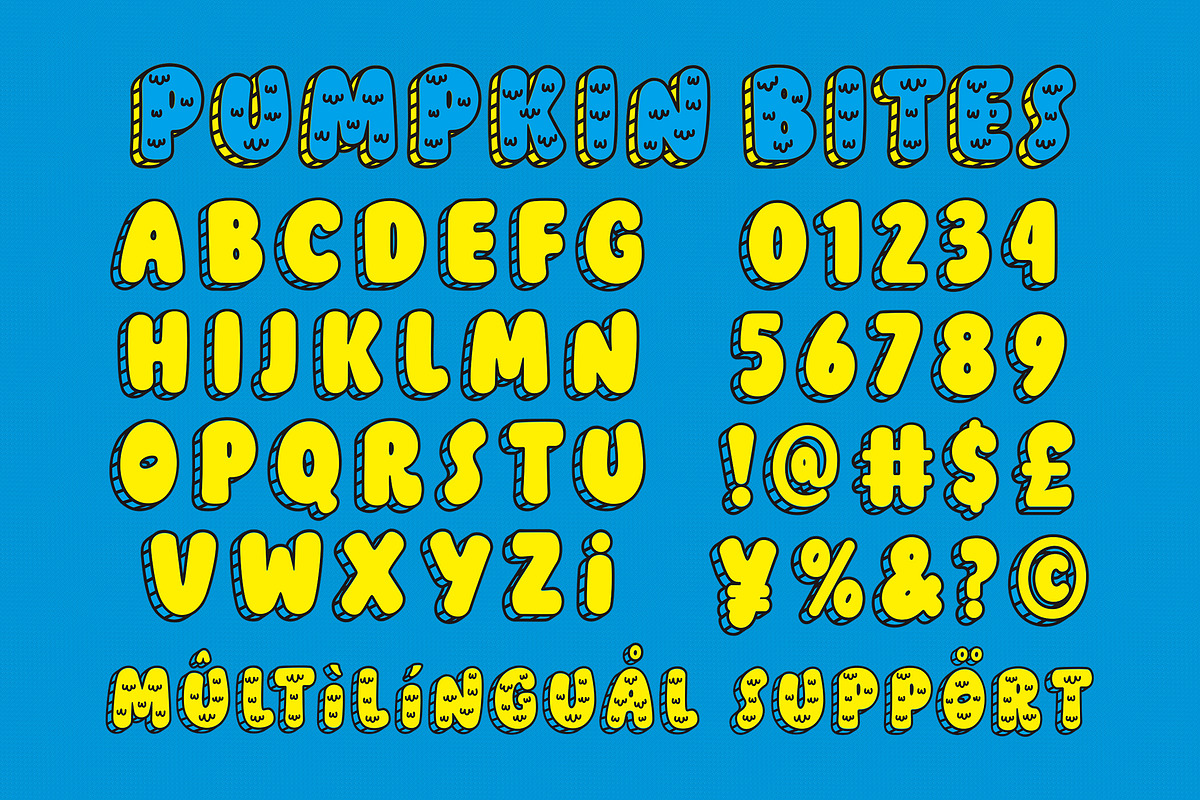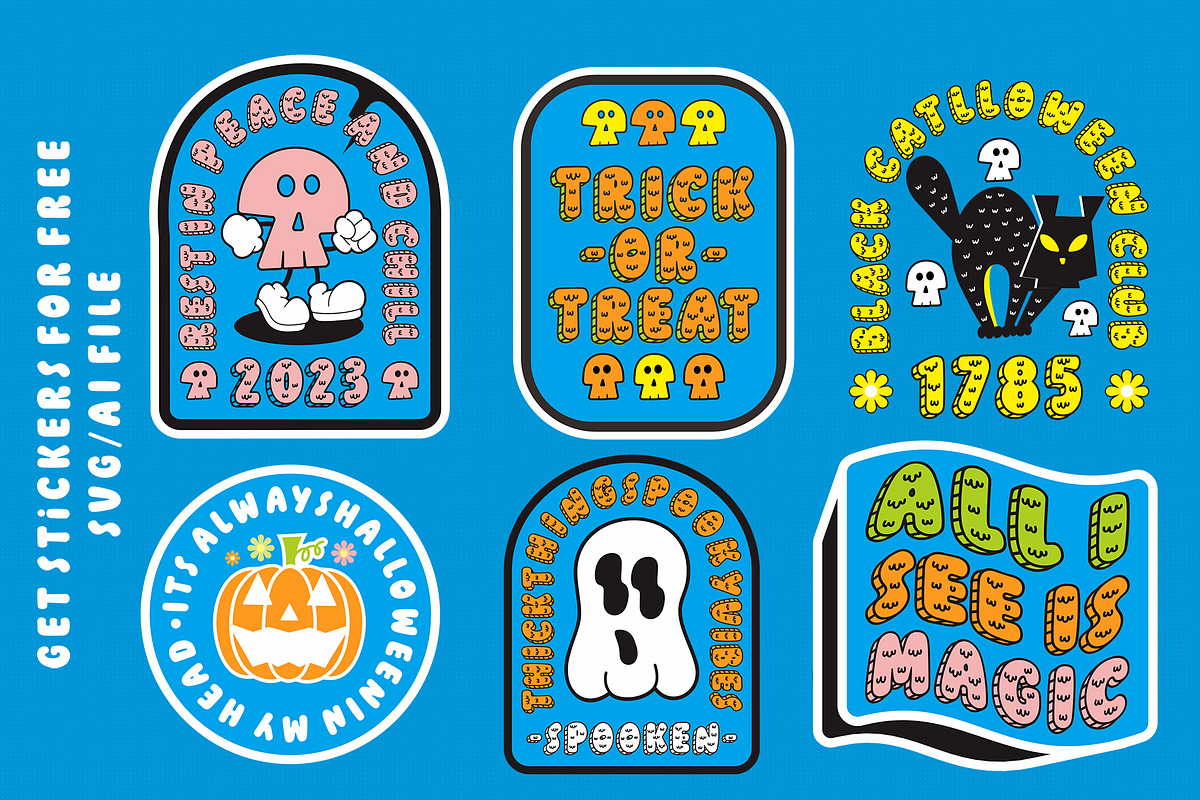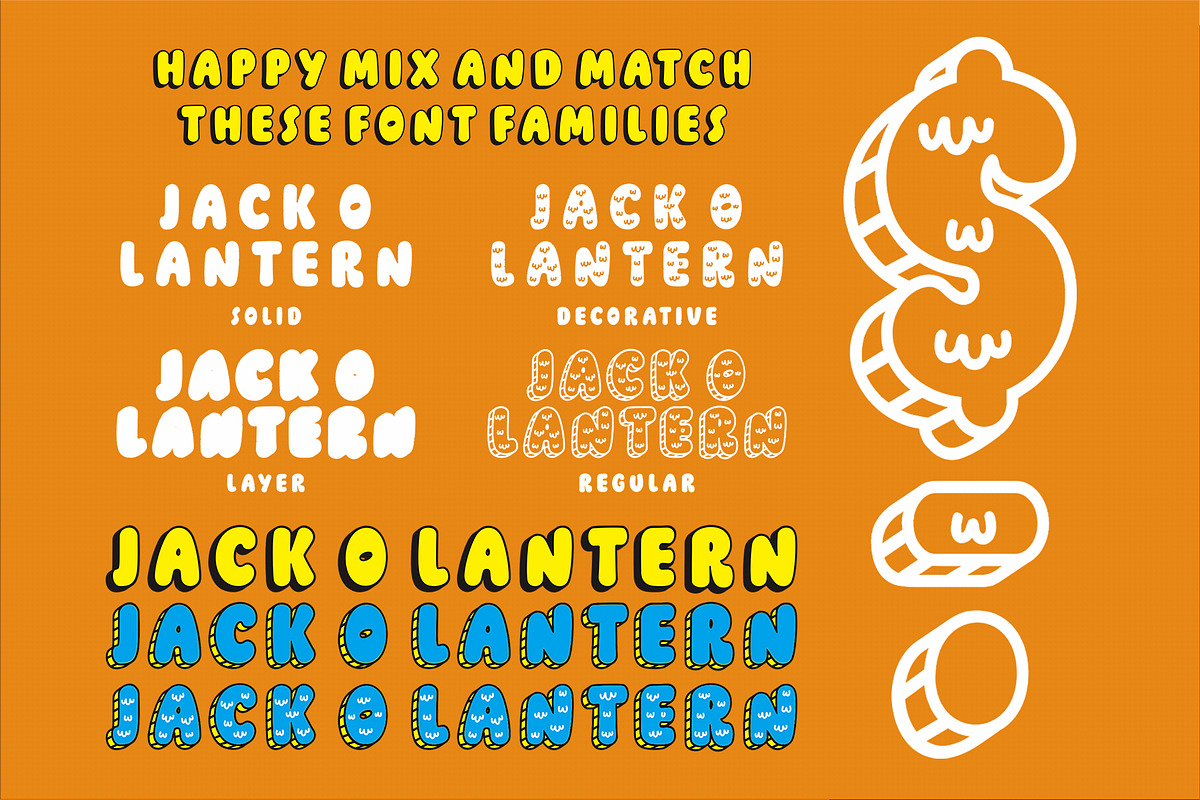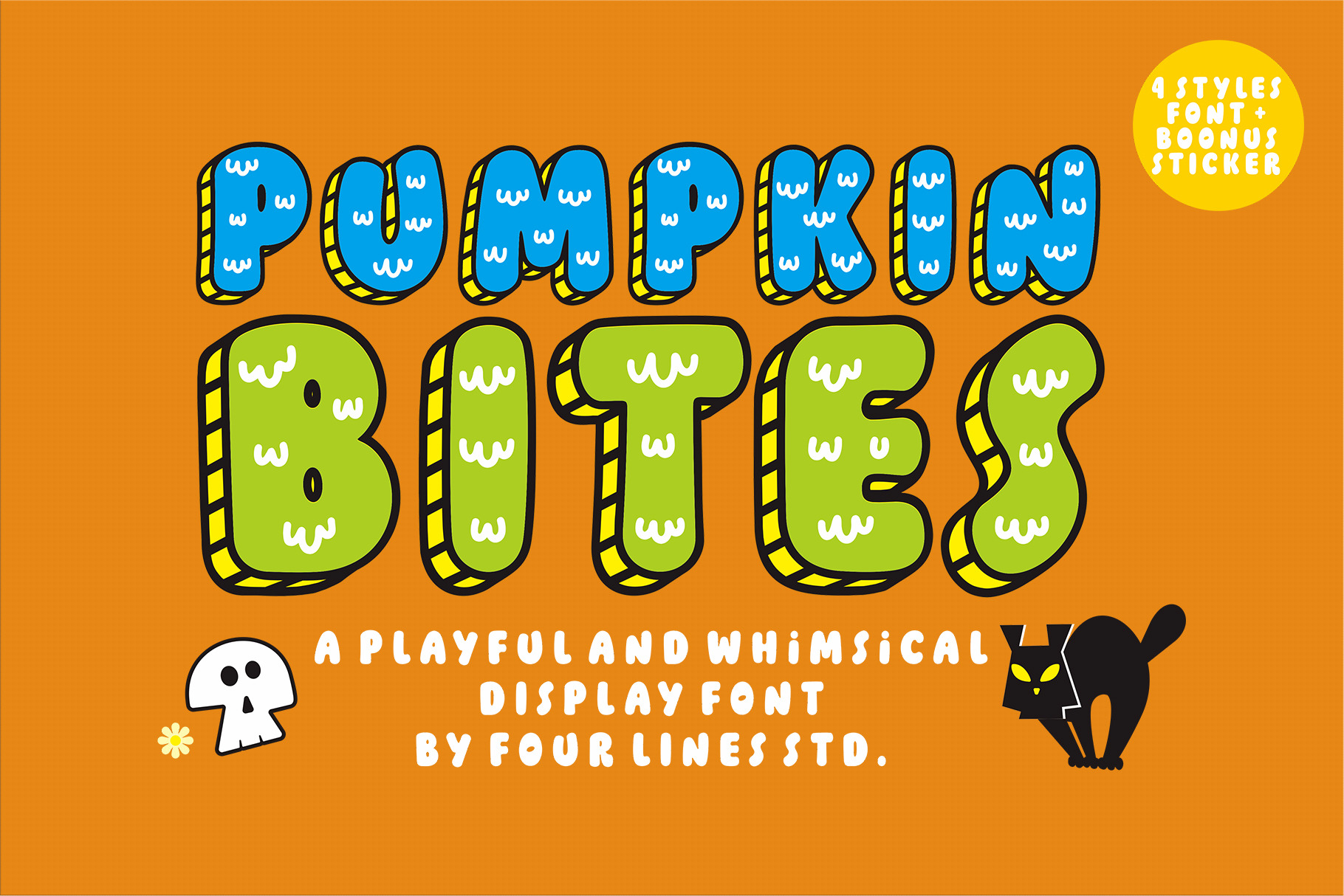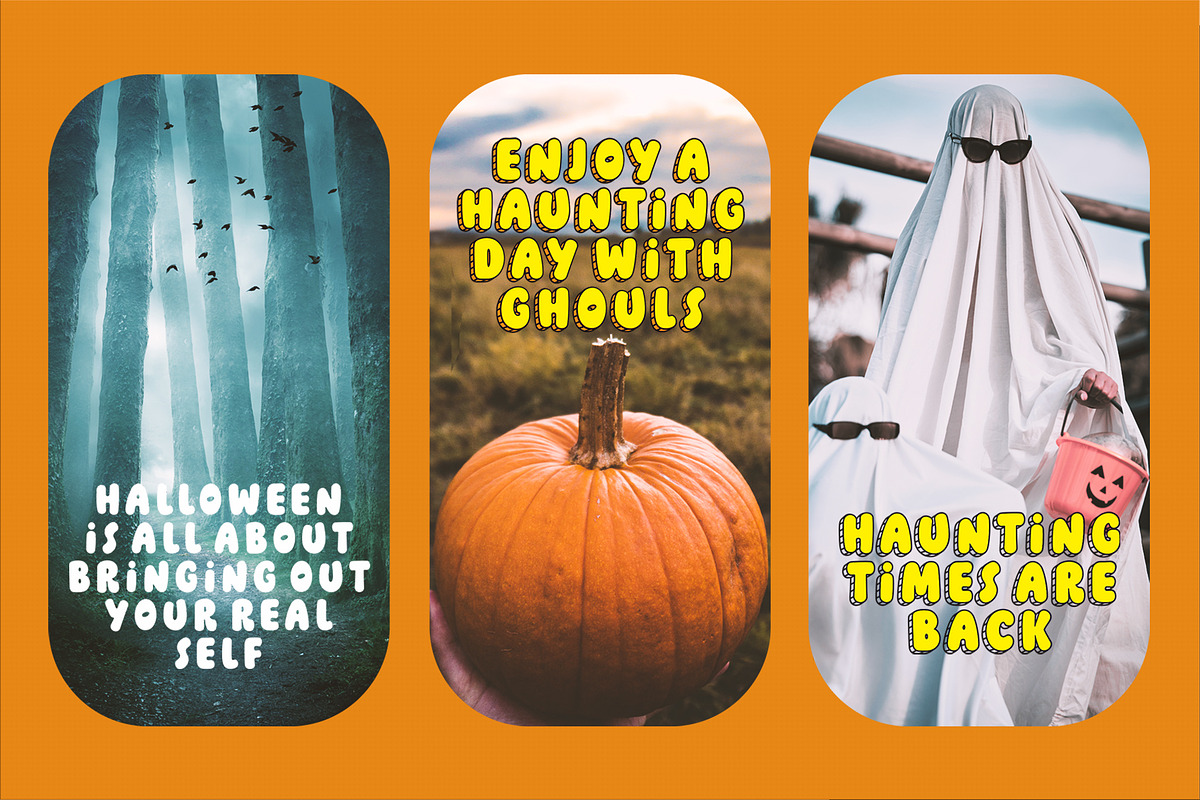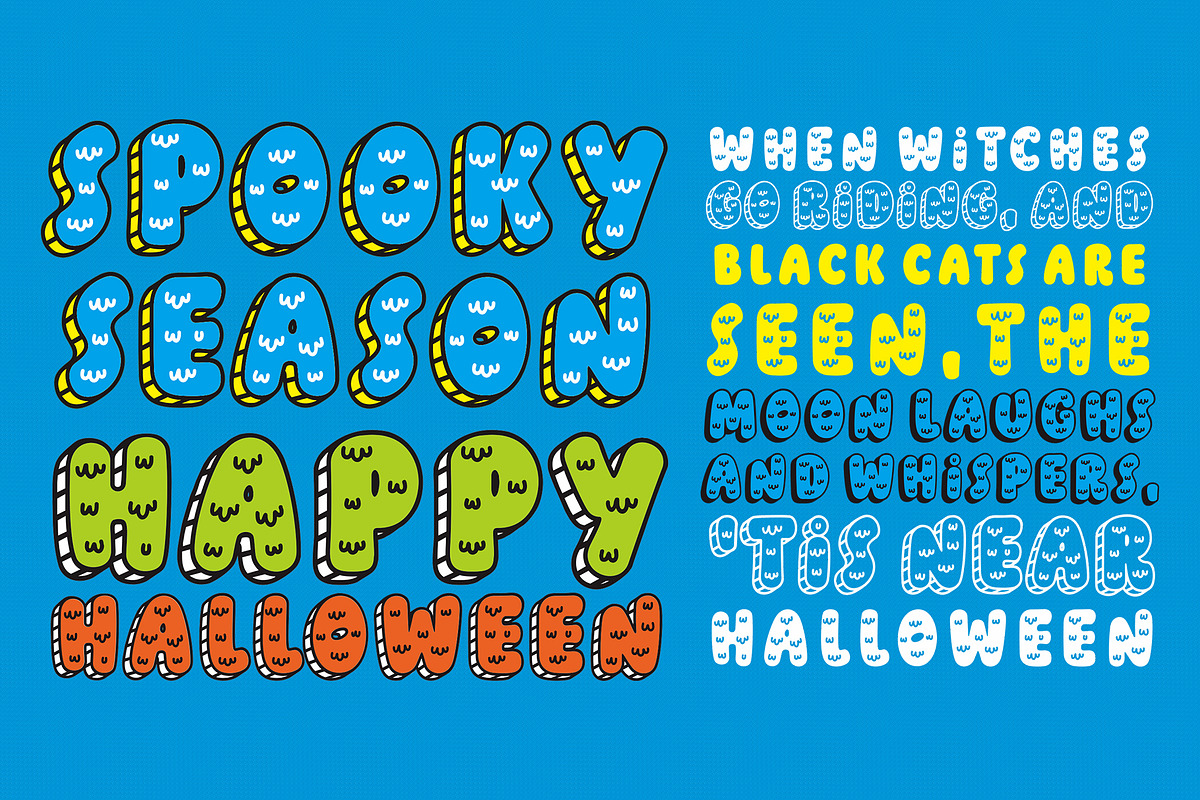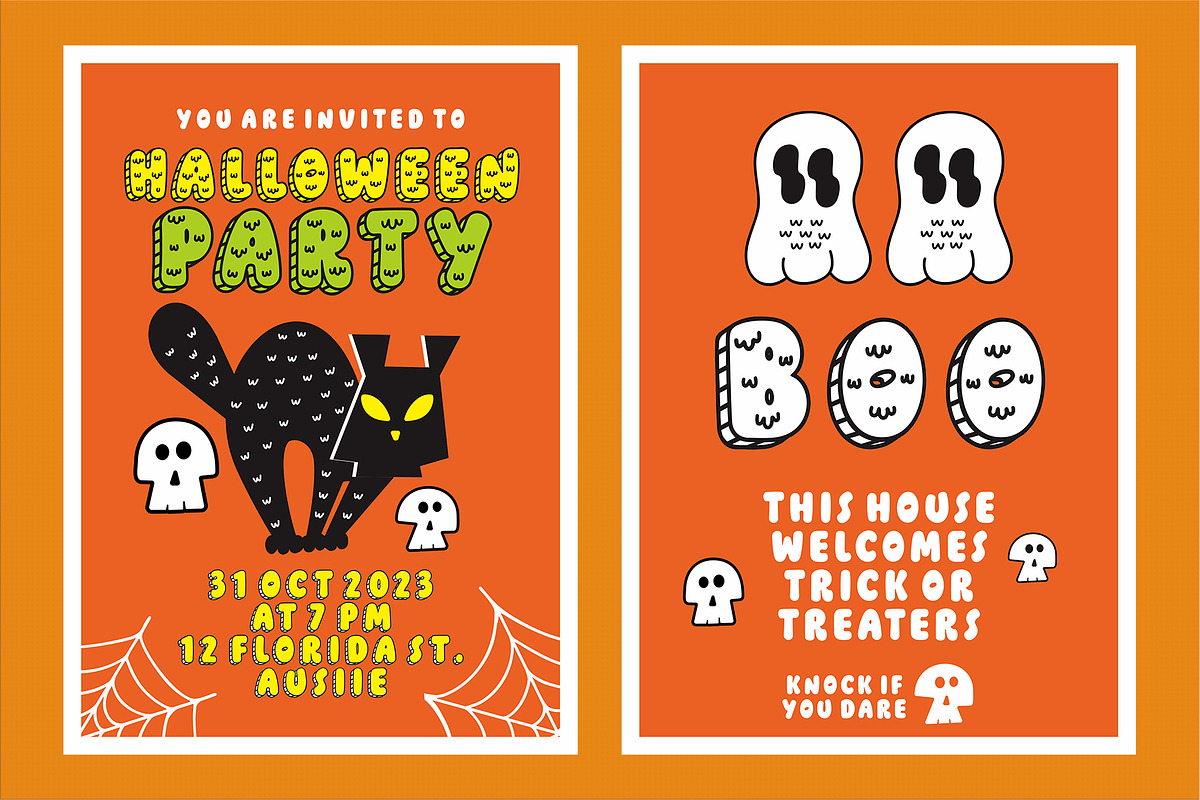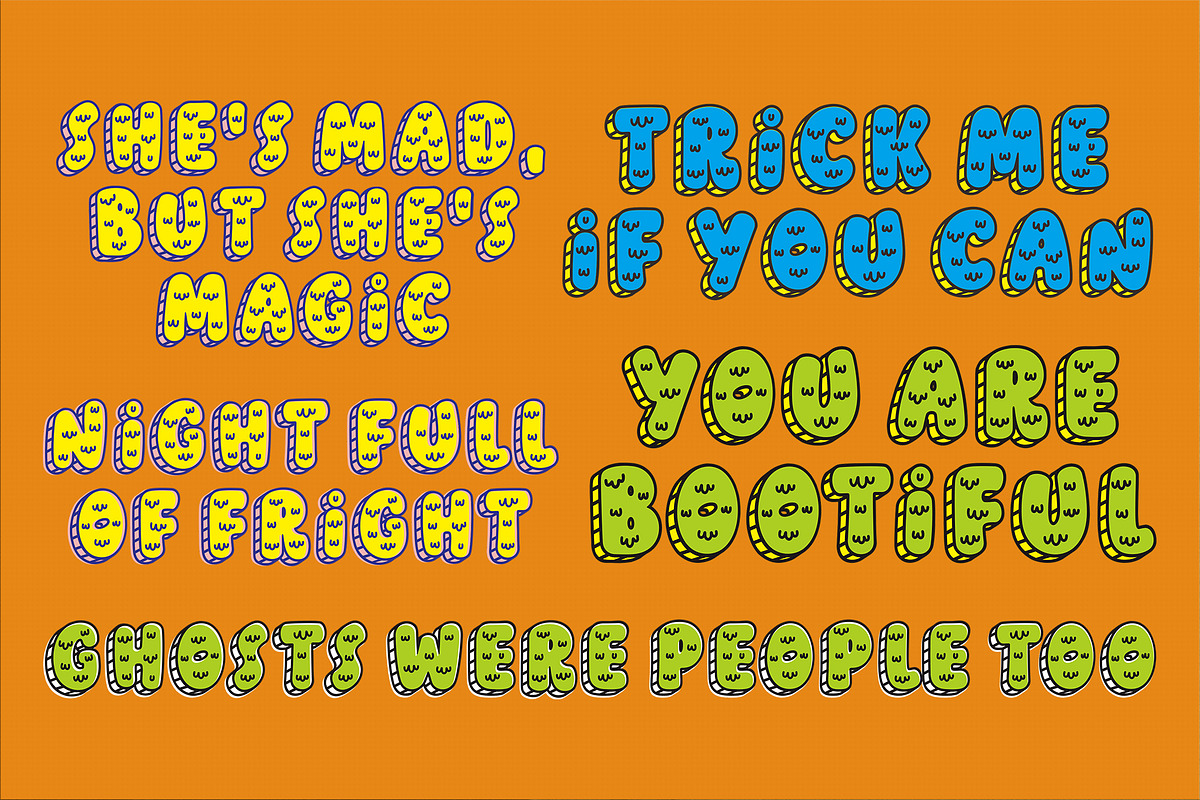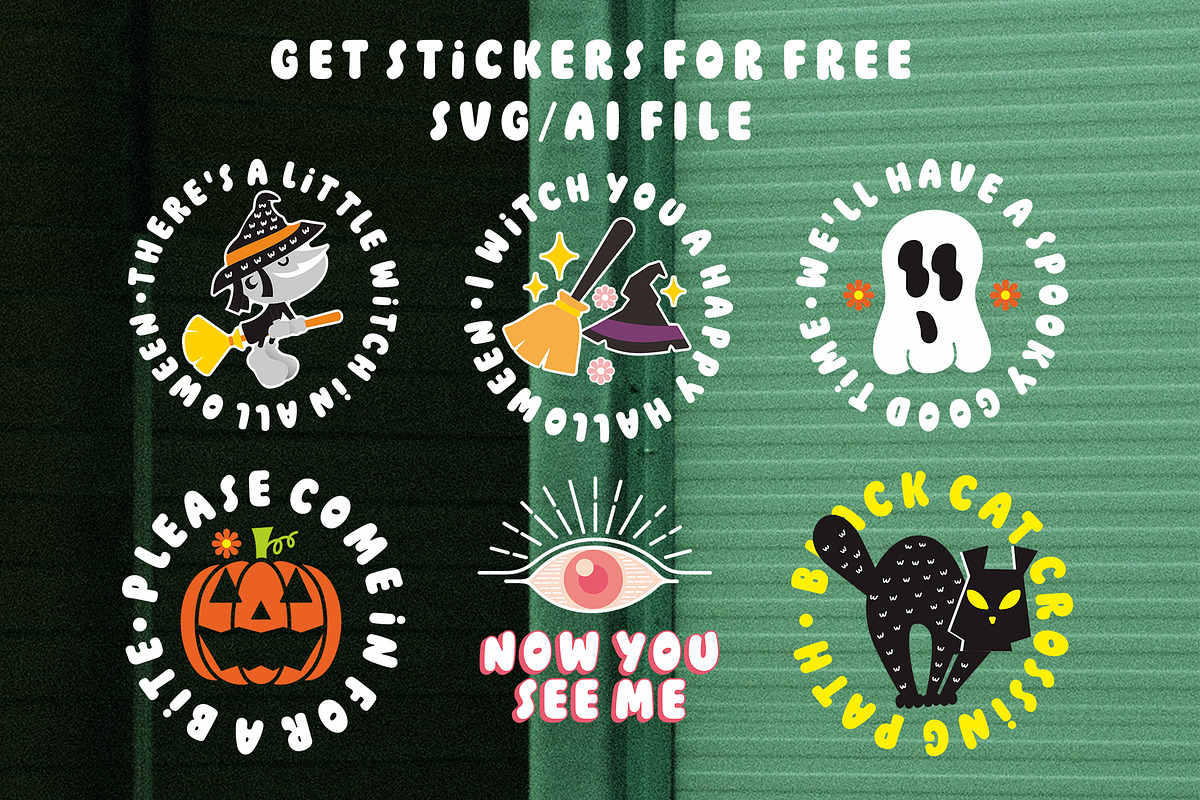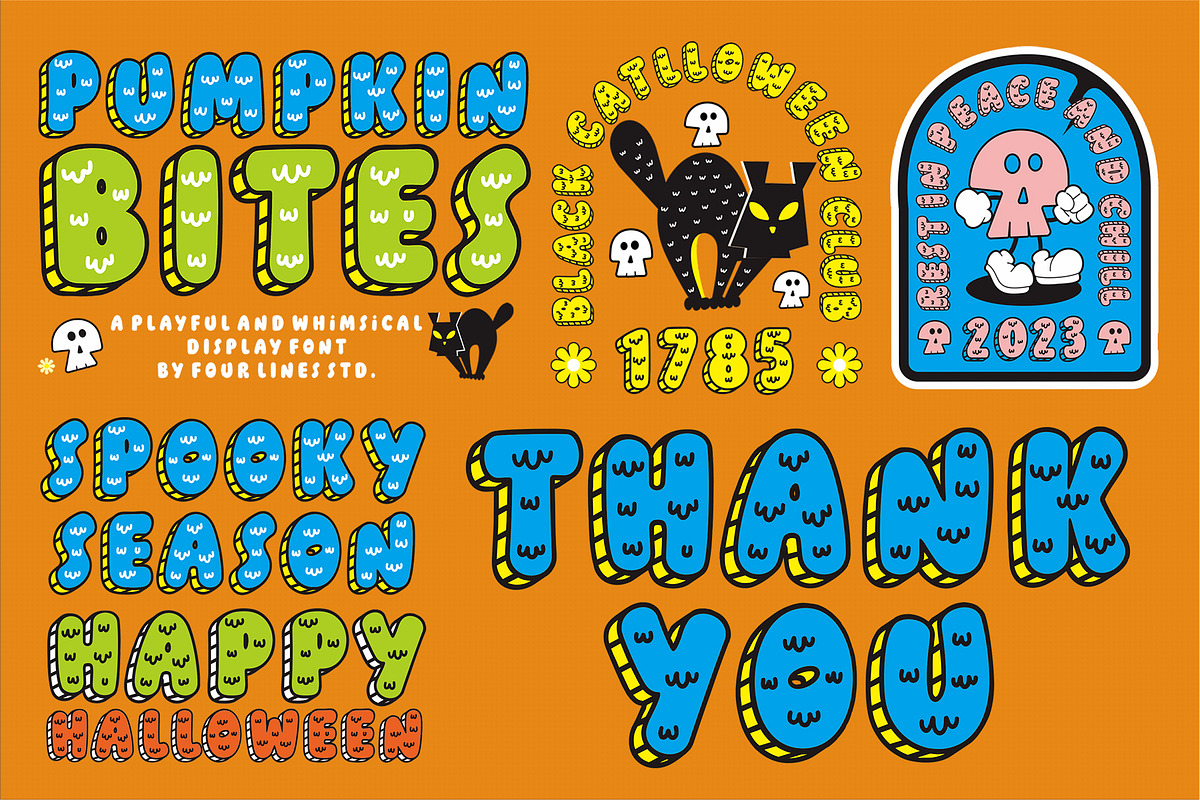
Introducing "Pumpkin Bites" - A Playful and Whimsical Font Collection Step into a world of whimsy and charm with Pumpkin Bites, a delightful font collection that will inject a cheerful and quirky touch to your designs. With its four unique font types that can be effortlessly combined, this font is all about embracing creativity and spreading joy. Whether you're designing invitations, greeting cards, logos, or even a whimsical website, Pumpkin Bites will be your go-to font collection. So, embrace the playful spirit of Pumpkin Bites and let your creativity run wild!